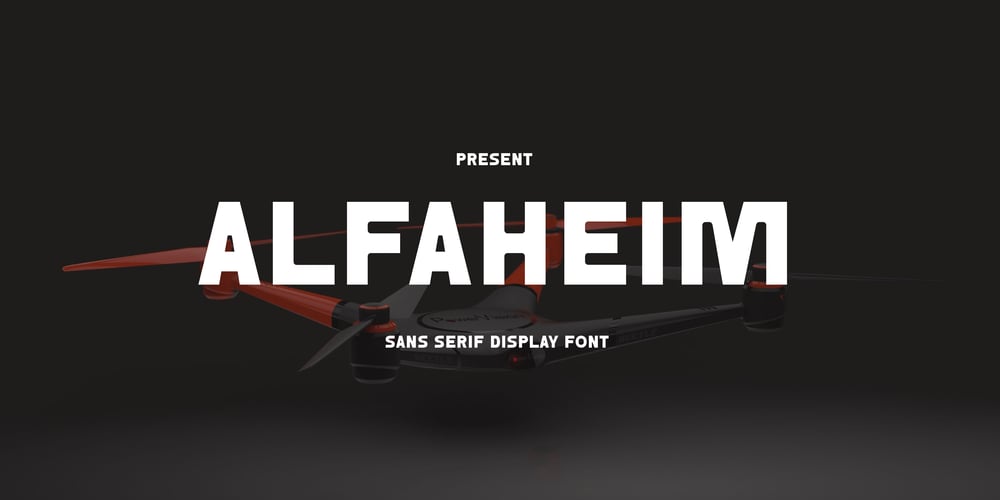
Alfaheim Font Family was designed by Syaiful Rizal Muhaimin and published by Ameenatype. Alfaheim contains 1 styles and family package options. Introducing Alfaheim, a striking sans serif display font designed to bring a powerful, modern, and futuristic edge to your designs. With its bold, impactful letterforms, Alfaheim is perfect for headlines, logos, posters, and any graphic design project that demands strong visual presence.